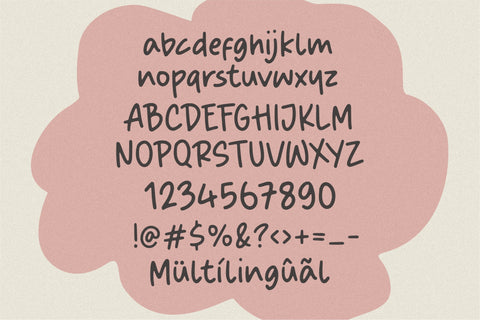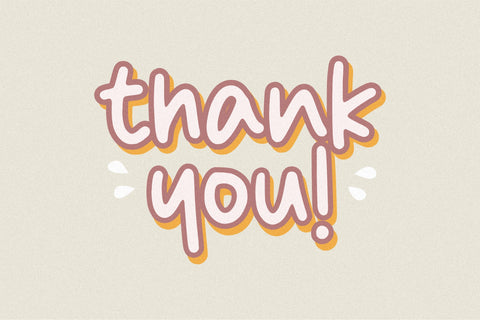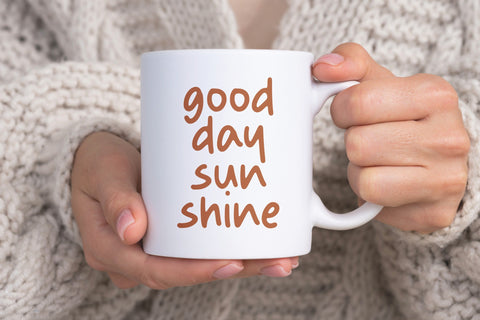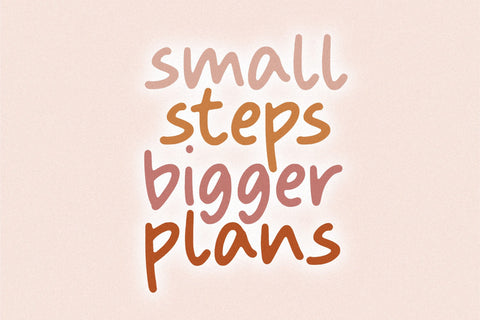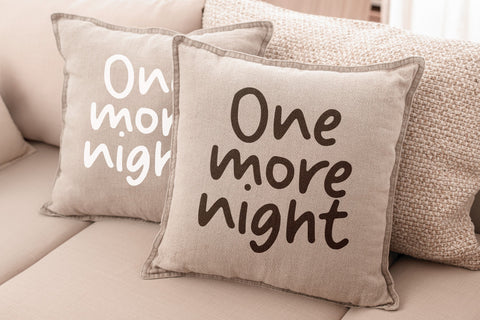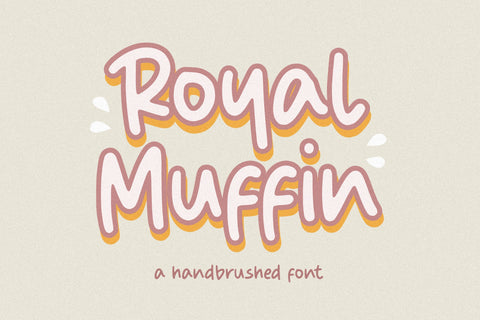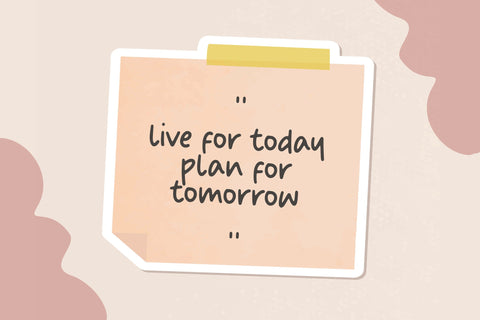
Royal Muffin Letter Hand-Brushed Font
Proudly Present, Royal Muffin Font.
Royal Muffin is a Letter Hand-Brushed Font. This unique font will add a fun, quirky, handmade touch to your design! This font Is perfect for logo, social media posts, advertisements, product packaging, product designs, label, photography, watermark, special events or anything.